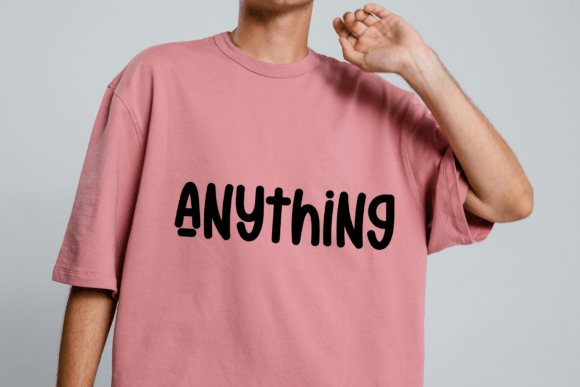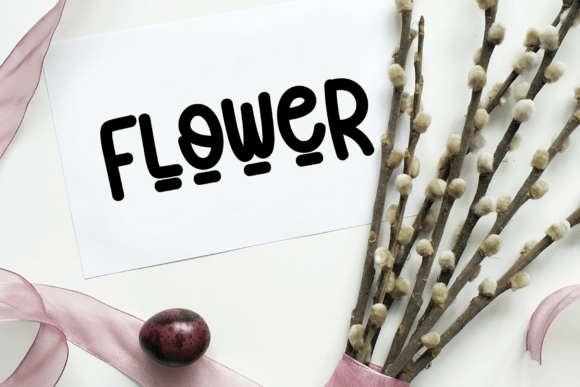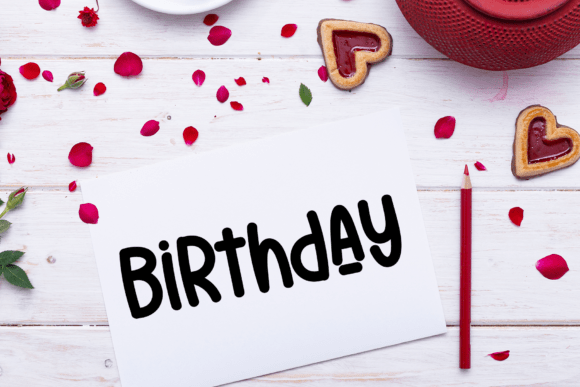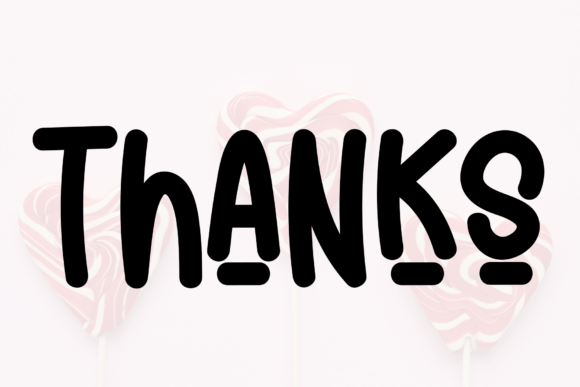
Introducing Donuts Ultimate Font: The Sweetest Addition to Your Design Projects
Are you a designer or crafter looking for a font that adds a touch of warmth and personality to your projects? Look no further than Donuts Ultimate Font! This beautiful handwritten font is the perfect way to add a cozy accent to any design project you wish to create. With its unique and playful characters that dance along the baseline, Donuts Ultimate Font is sure to make your designs stand out from the crowd.
What Makes Donuts Ultimate Font So Special?
Donuts Ultimate Font is a sweet and beautiful handwritten font that features characters that dance along the baseline, giving it a playful and whimsical feel. The font is designed to be highly legible and versatile, making it perfect for use in a wide range of design projects, from branding and packaging to invitations and crafts. Whether you’re creating a logo, a poster, or a social media graphic, Donuts Ultimate Font is the perfect choice.
Key Features of Donuts Ultimate Font
- Handwritten with love: Donuts Ultimate Font is a carefully crafted handwritten font that is designed to look like it was written with love and care.
- Unique character design: The font features unique characters that dance along the baseline, giving it a playful and whimsical feel.
- Highly legible: Despite its playful design, Donuts Ultimate Font is highly legible and easy to read, making it perfect for use in a wide range of design projects.
- Versatile: Donuts Ultimate Font is a versatile font that can be used in a wide range of design projects, from branding and packaging to invitations and crafts.
How to Use Donuts Ultimate Font in Your Design Projects
Donuts Ultimate Font is easy to use in your design projects, and can be incorporated into your designs in a variety of ways. Here are a few ideas to get you started:
- Branding and packaging: Use Donuts Ultimate Font to create custom branding and packaging for your business or product.
- Invitations and events: Use Donuts Ultimate Font to create custom invitations and event materials, such as wedding invitations, birthday party invitations, and more.
- Crafts and DIY projects: Use Donuts Ultimate Font to add a personal touch to your crafts and DIY projects, such as scrapbooking, card making, and more.
- Social media graphics: Use Donuts Ultimate Font to create custom social media graphics, such as Facebook posts, Instagram stories, and more.
Tips for Getting the Most Out of Donuts Ultimate Font
Here are a few tips for getting the most out of Donuts Ultimate Font:
- Experiment with different colors: Donuts Ultimate Font looks great in a variety of colors, so don’t be afraid to experiment and find the perfect color for your design.
- Pair with other fonts: Donuts Ultimate Font pairs well with a variety of other fonts, so try pairing it with a bold font for headings and a clean font for body text.
- Use it sparingly: While Donuts Ultimate Font is a beautiful font, it can be overwhelming if used too much. Use it sparingly to add a touch of personality to your designs.